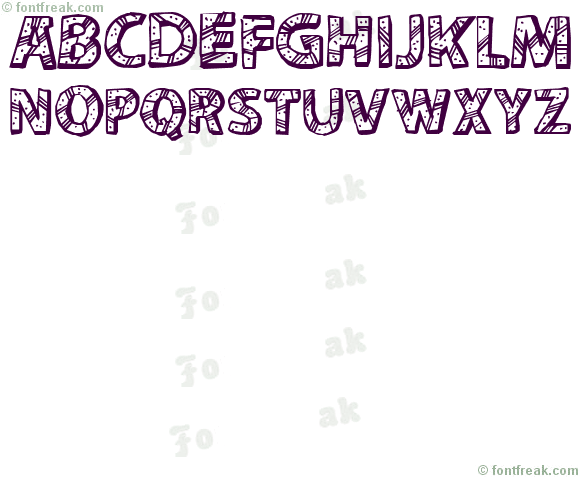
CF Peru Adventure Regular
About CF Peru Adventure Regular
CF Peru Adventure Regular is a distinctive display font that offers a unique blend of personality and style, making it a versatile choice for a variety of creative projects. Created by Cloutierfontes, this freeware typeface features a playful, adventurous spirit that captures the essence of exploration and fun. The font showcases a distinctive stroke weight with moderate contrast, which adds visual interest while maintaining legibility. Its well-balanced spacing allows for comfortable reading, making it suitable for both headlines and body text.
This font shines in several specific use cases. It is perfect for designing eye-catching movie posters, where its adventurous vibe can draw in audiences. Additionally, CF Peru Adventure Regular is an excellent choice for crafting unique restaurant menus that stand out while still being easy to read. Its playful nature also makes it ideal for children's book covers or educational materials aimed at younger audiences. Graphic designers looking to add a touch of whimsy to their projects will find this font particularly appealing, as will small business owners seeking to create a memorable brand identity.
What sets CF Peru Adventure Regular apart is its ability to evoke a sense of adventure, making it an excellent choice for projects that aim to inspire creativity and exploration. Its unique visual characteristics and playful design elements ensure that any text set in this font will make a lasting impression.